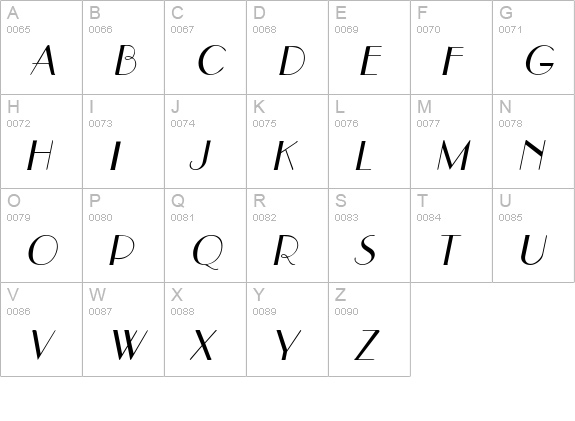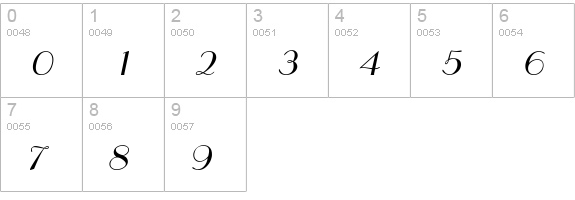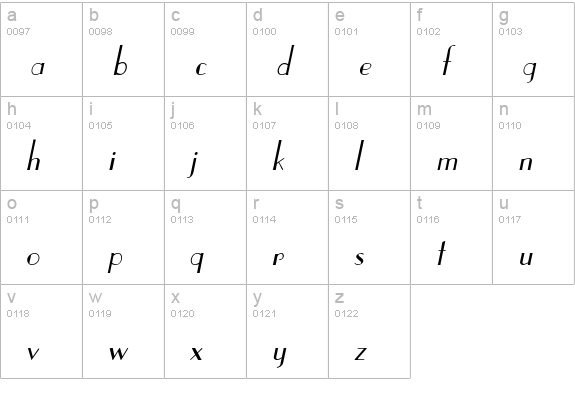
WeekendInParis Italic Font Details
WeekendInParis Italic is a distinctive, italic variant in the WeekendInParis typeface family \xE2\x80\x94 well suited to design and typography projects.
WeekendInParis Italic font is a stunning and elegant typeface that exudes a sense of sophistication and charm. With its slanted and stylish letterforms, this font adds a touch of flair to any design project. Whether you're creating invitations for a luxurious event, designing a high-end magazine layout, or crafting a unique logo for a boutique hotel, WeekendInParis Italic font will elevate your work to new heights. What makes WeekendInParis Italic font even more appealing is that it is freely available to download at FontsMarket.com. That means you can easily access this exquisite font without breaking the bank. Whether you're a professional designer or a casual enthusiast, having access to high-quality fonts like WeekendInParis Italic font can make a world of difference in your creative endeavors. The clean and flowing lines of WeekendInParis Italic font make it incredibly versatile. It effortlessly adapts to various design styles, whether you're aiming for a classic and timeless look or a modern and edgy aesthetic. The italicized slant adds a sense of motion and dynamism, giving your designs a sense of energy and excitement. WeekendInParis Italic font is perfect for adding a touch of elegance to headlines, subheadings, and quotes. Its unique and distinctive letterforms draw attention and create visual interest, making your text stand out from the crowd. Whether you're designing for print or digital media, WeekendInParis Italic font will captivate your audience and leave a lasting impression. So don't miss out on the opportunity to enhance your design projects with the beauty and versatility of WeekendInParis Italic font. Head over to FontsMarket.com now to download this incredible font for free. With WeekendInParis Italic font in your toolkit, you'll have the power to create stunning and captivating designs that will leave a lasting impact.